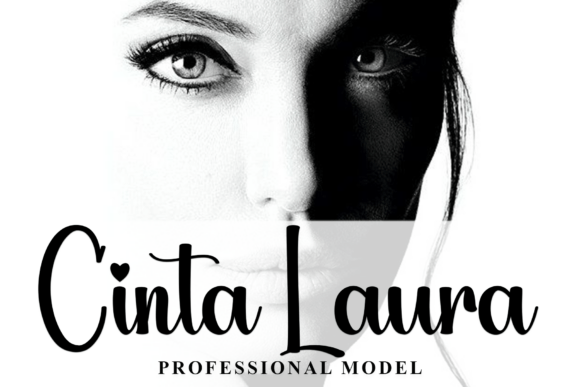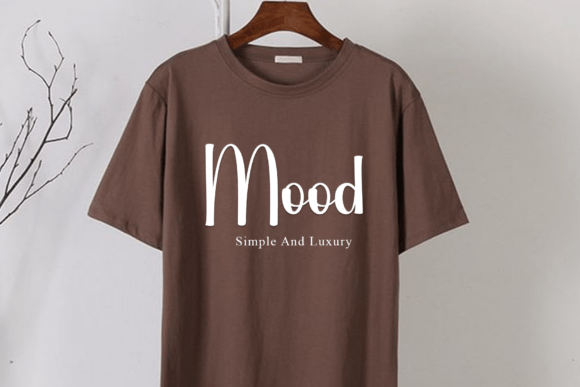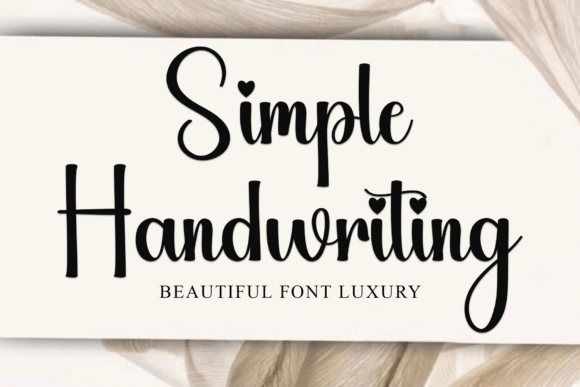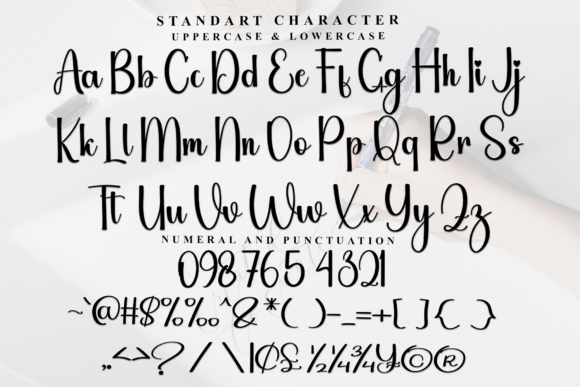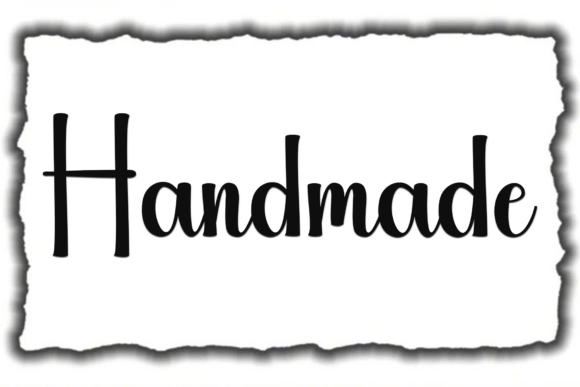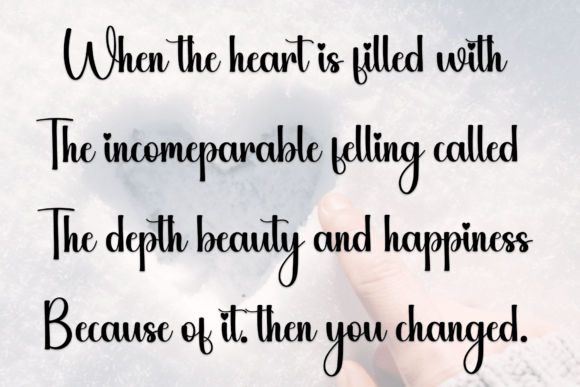
Introducing Blackink Calligraphy Font: The Perfect Holiday Companion
Are you looking for a typeface that embodies the spirit of the holiday season? Look no further than Blackink Calligraphy Font! This festive and merry font is designed to bring a touch of enchantment to your designs, making it perfect for greeting cards, gift tags, and holiday-themed projects.
Blackink Calligraphy Font is a beautifully crafted typeface that exudes a sense of joy and festivity. Its decorative elements and whimsical flair make it an ideal choice for designers and crafters looking to add a touch of magic to their work. Whether you’re creating holiday-themed stationery, decorations, or gifts, this font is sure to bring a cheerful and nostalgic ambiance to your words.
Blackink Calligraphy Font is specifically designed with the holiday season in mind. Its elegant and flowing script is perfect for creating:
- Greeting cards: Add a personal touch to your holiday cards with this beautiful font.
- Gift tags: Make your gifts stand out with custom tags featuring this festive font.
- Holiday-themed projects: From invitations to decorations, this font is perfect for any holiday project.
- Use ligatures to create beautiful, flowing text.
- Make the most of the font’s decorative elements to add visual interest to your work.
Why Choose Blackink Calligraphy Font?
So why choose Blackink Calligraphy Font for your holiday projects? Here are just a few reasons:
- Unique and eye-catching: This font is sure to stand out from the crowd, adding a touch of magic to your designs.
- Versatile: Blackink Calligraphy Font is perfect for a wide range of holiday projects, from greeting cards to decorations.
Tips for Using Blackink Calligraphy Font
To get the most out of Blackink Calligraphy Font, here are a few tips:
- Experiment with sizes: Try using the font in different sizes to create visual interest and hierarchy in your designs.
- Play with colors: Blackink Calligraphy Font looks beautiful in a range of colors, from traditional holiday colors like red and green to metallic shades like gold and silver.
- Mix and match: Don’t be afraid to combine Blackink Calligraphy Font with other fonts and design elements to create a unique look.